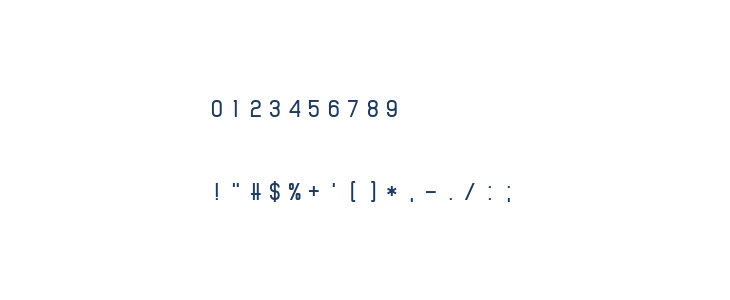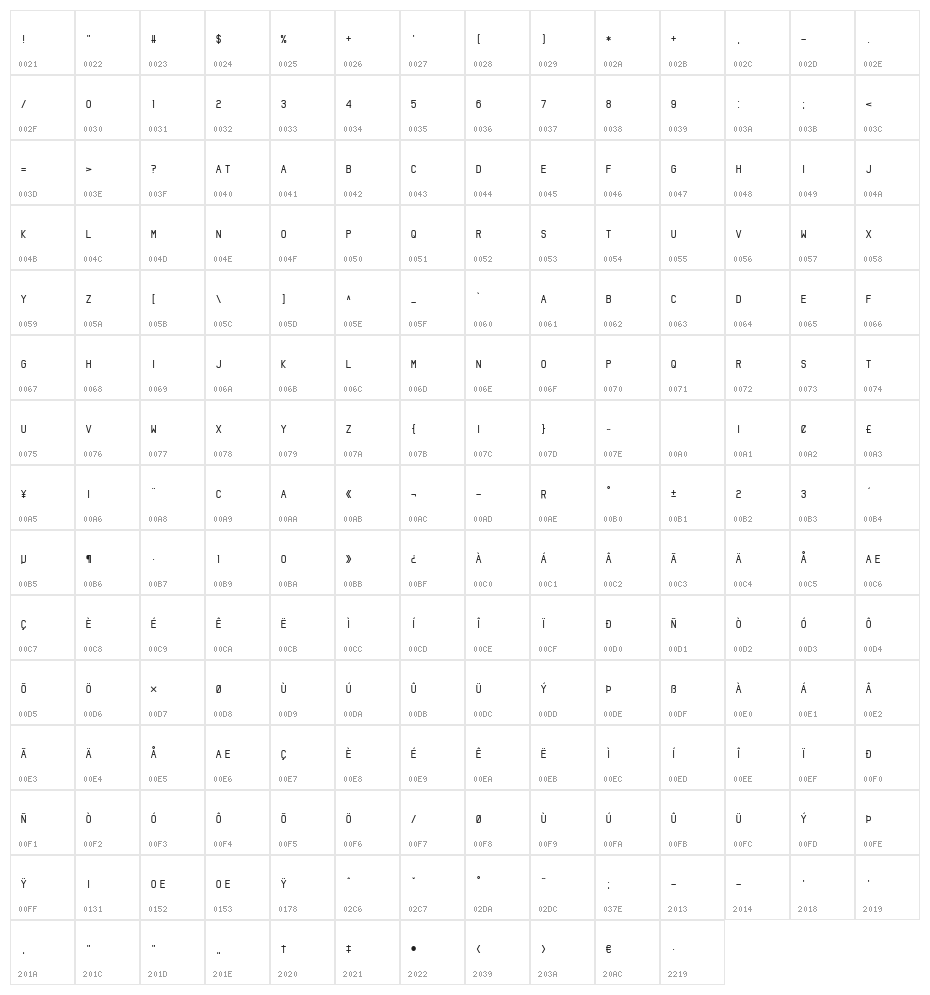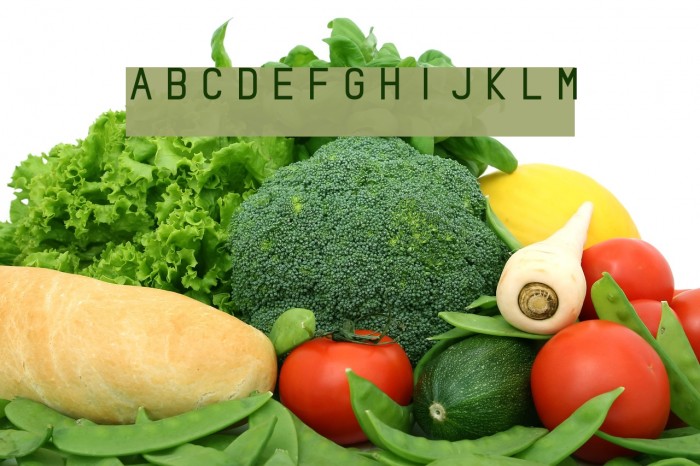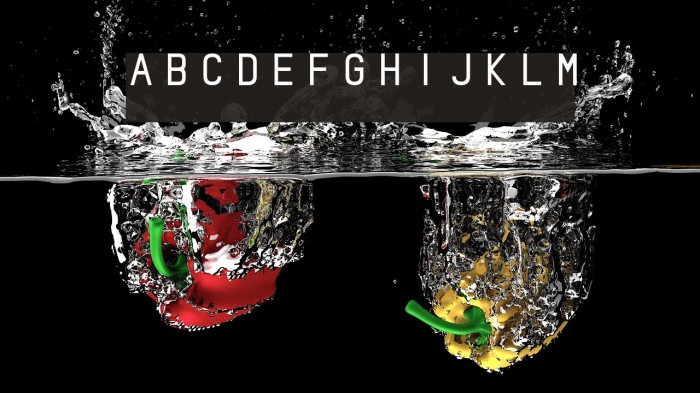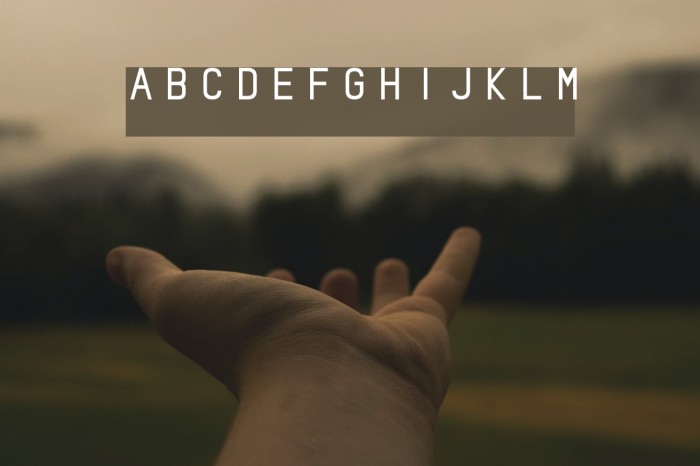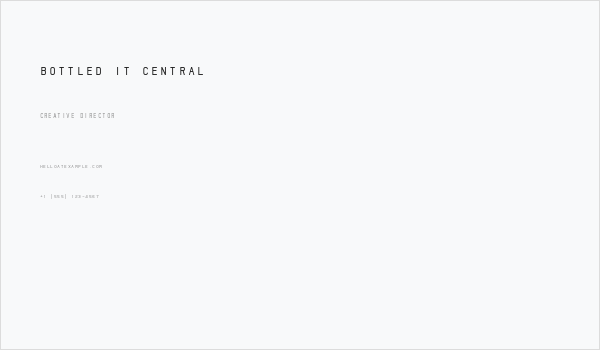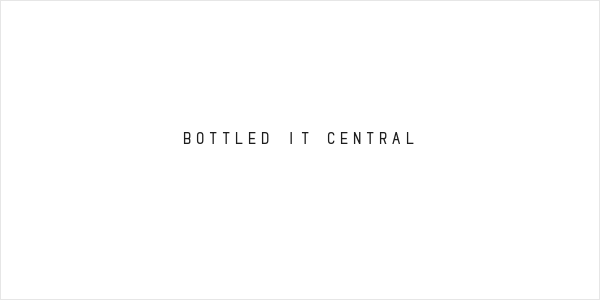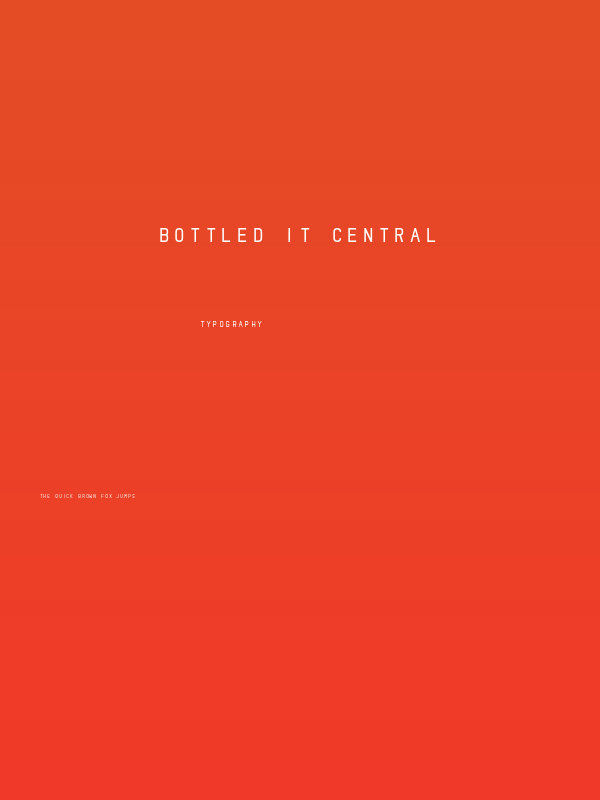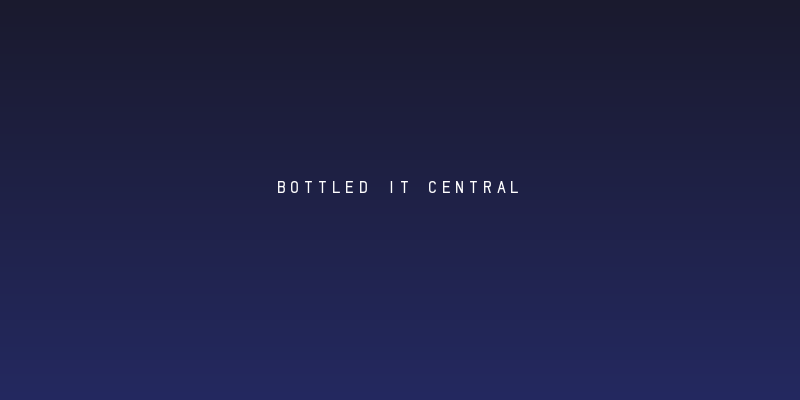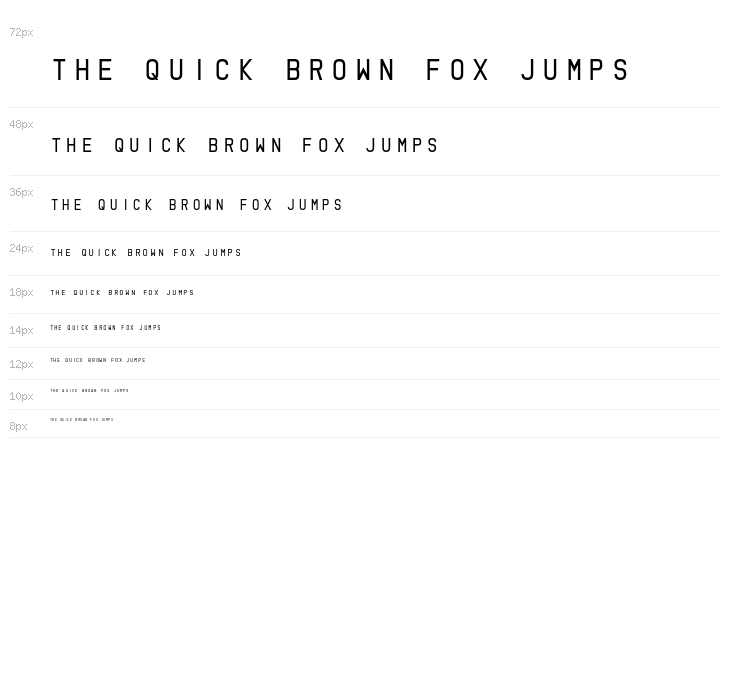
Bottled It Central Font
Bottled It Central Description
This font features a clean and modern sans-serif style with uniform stroke widths, giving it a sleek and contemporary appearance. The characters are evenly spaced, providing a balanced and readable text. The uppercase and lowercase letters maintain a consistent height, contributing to its orderly and structured look. The numerals are straightforward and align well with the overall design, making them easy to read. Special characters are clearly defined, enhancing the font's versatility for various applications. Its simplicity and clarity make it suitable for both digital and print media.
| Proposed Projects | Ideal for branding, web design, advertising, and editorial layouts. |